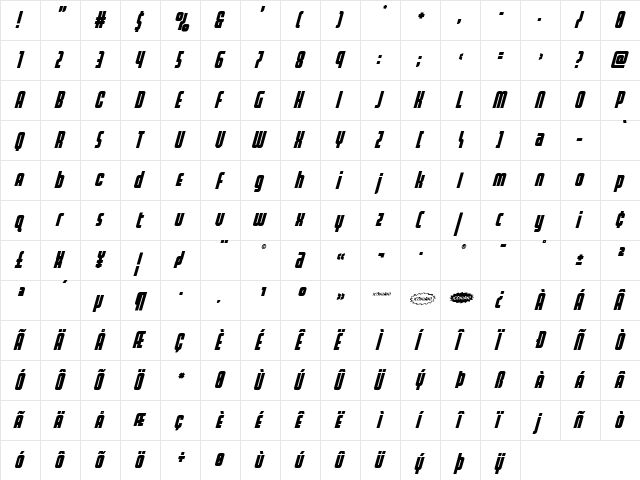
Homelander Super-Italic Regular
Design Context for Homelander Super-Italic Typeface
Homelander Super-Italic offers clean, dependable letterforms without strong stylistic allegiance, making it a practical choice for designers who need flexibility. Its italic angle brings a sense of urgency and motion to the letterforms.
Pro Tip: Try Homelander Super-Italic for annotation and caption copy alongside an upright companion — the contrast in angle creates a dynamic but ordered typographic system.